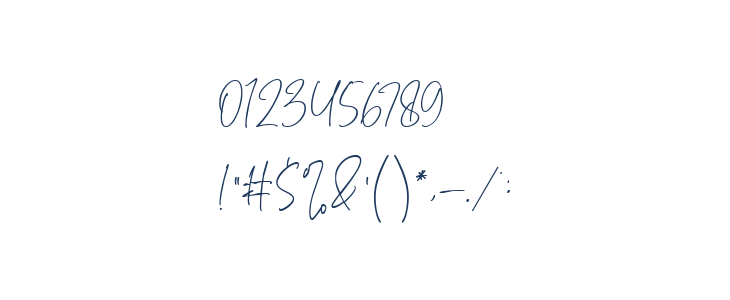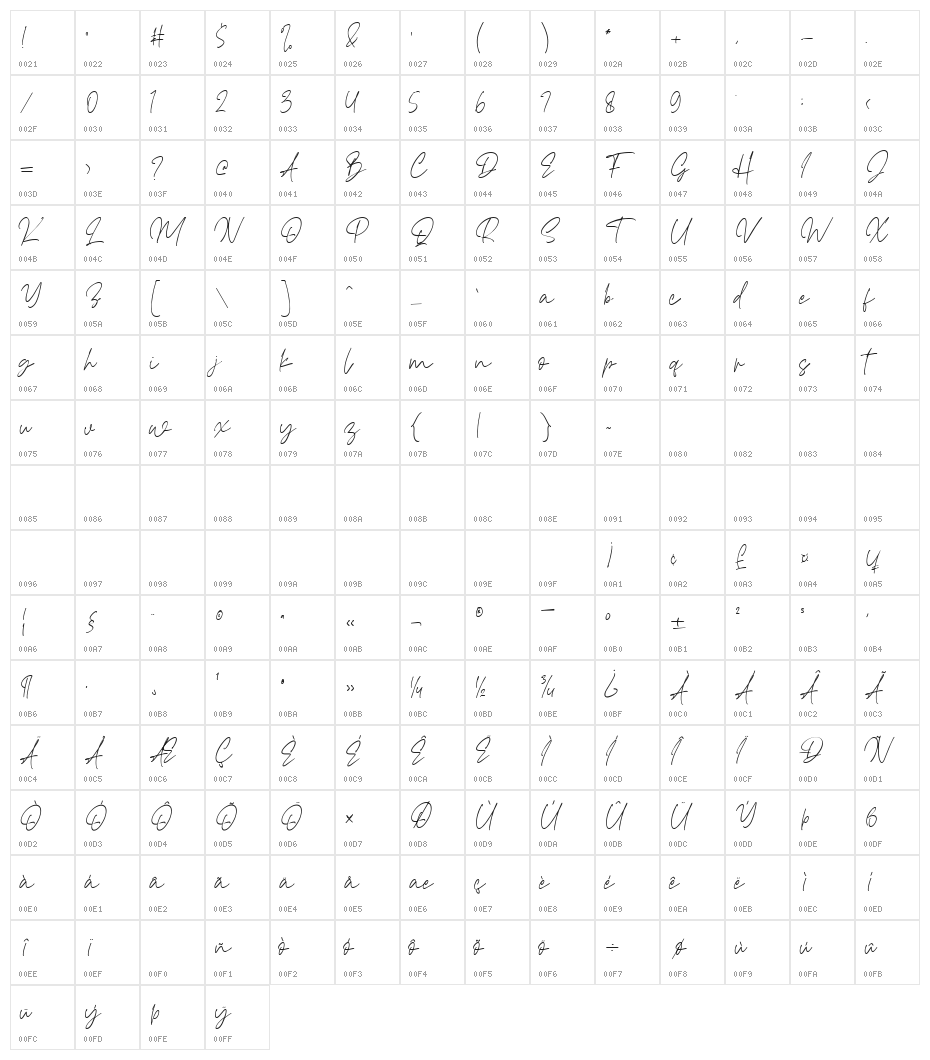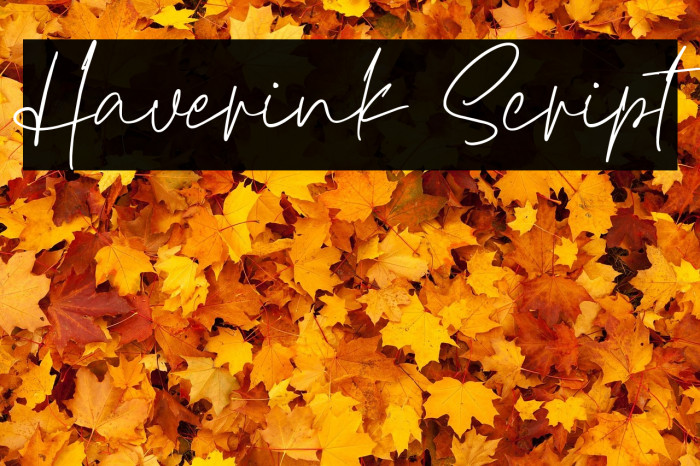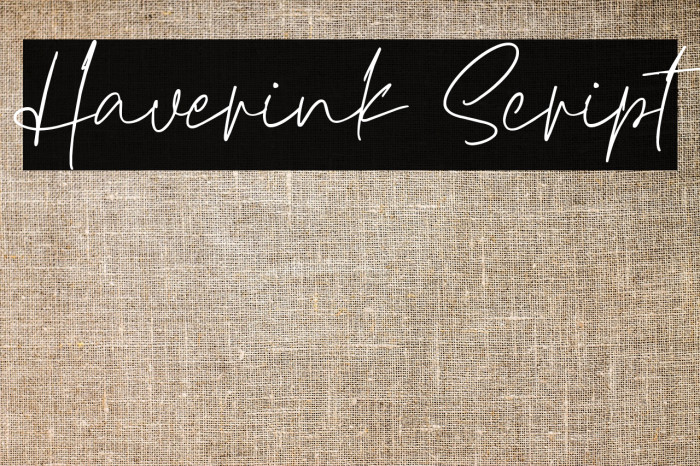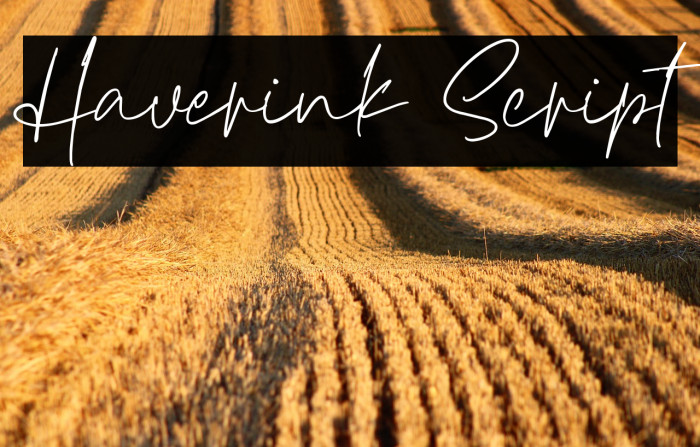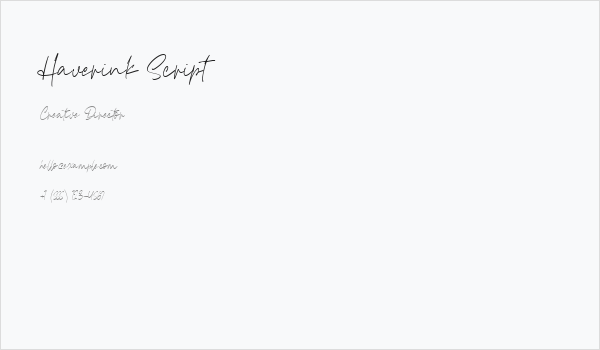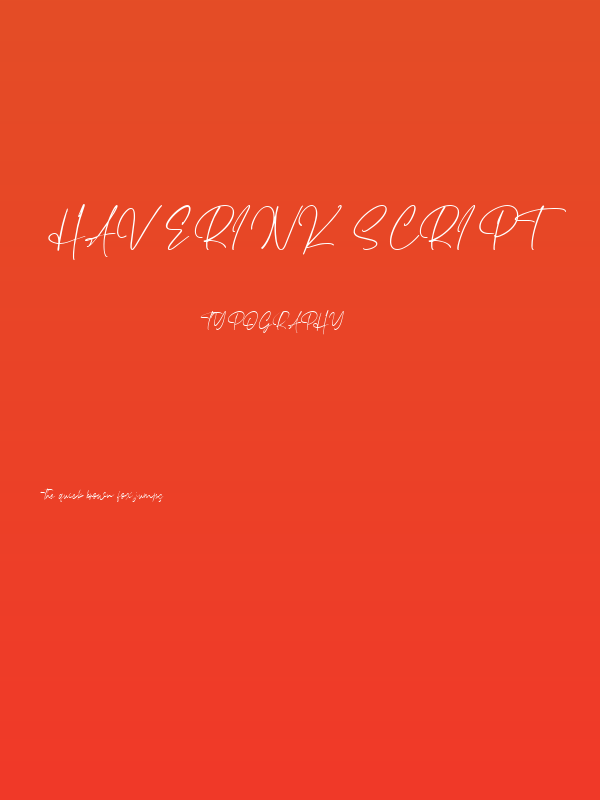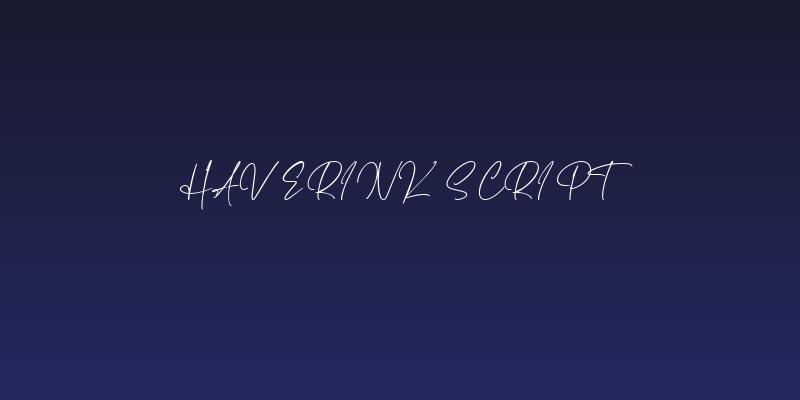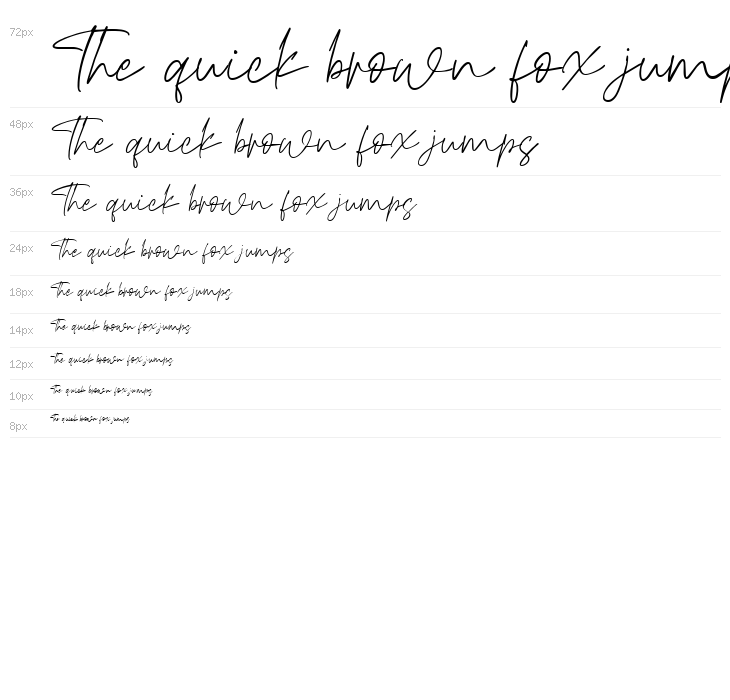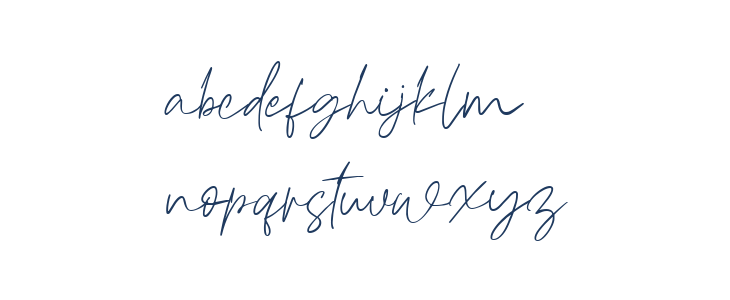
Haverink Script Font
Haverink Script Description
This font exudes a graceful and fluid style, characterized by its elegant script form. The letters are connected in a flowing manner, reminiscent of traditional cursive handwriting. Each character is crafted with a delicate touch, featuring smooth curves and a consistent stroke width that enhances its readability. The uppercase letters stand tall with a slight slant, while the lowercase letters maintain a harmonious balance, adding to the overall aesthetic appeal. The numerals and special characters are designed to complement the alphabet, ensuring a cohesive look across all text. This font is perfect for projects that require a personal and sophisticated touch.